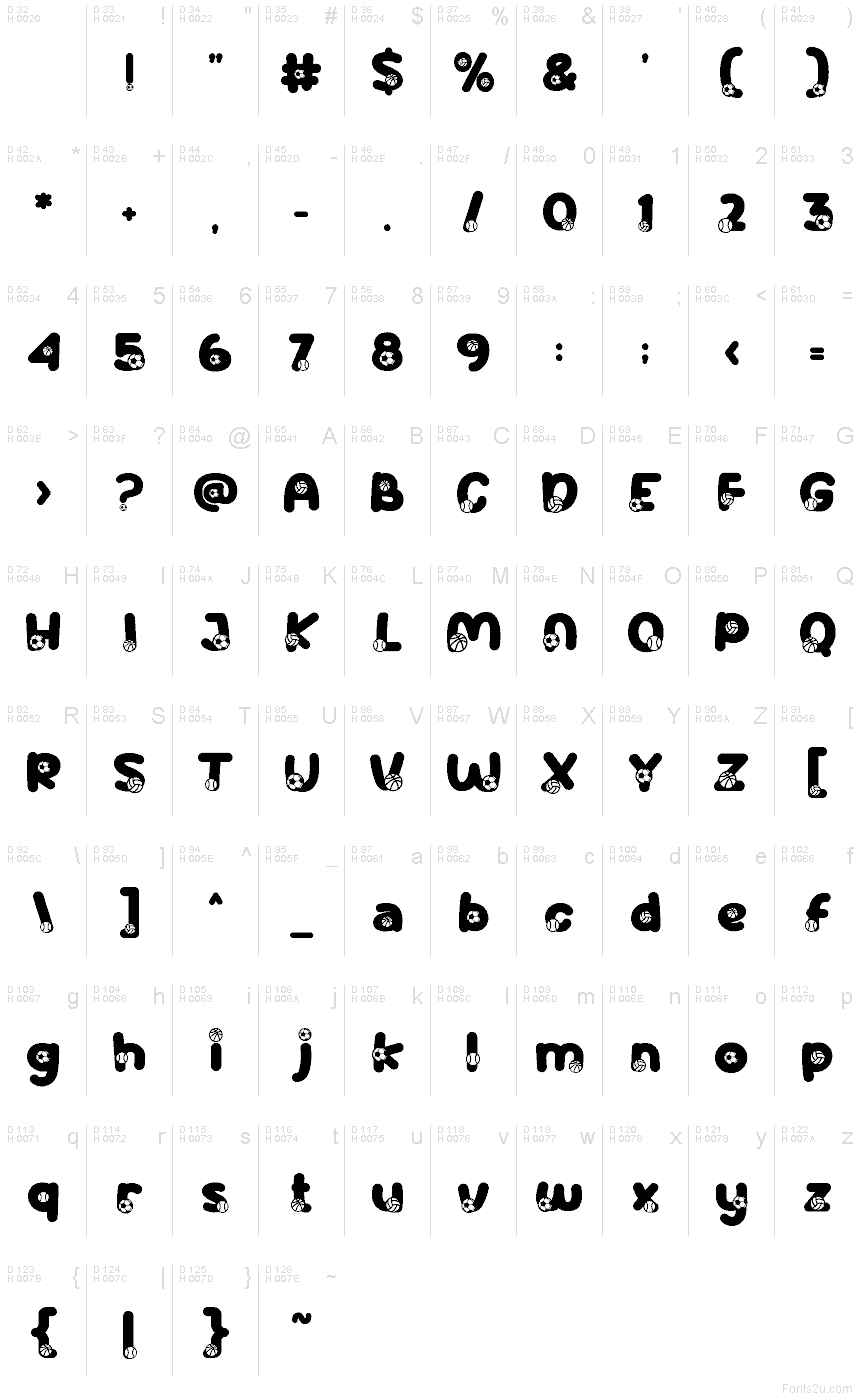
Super School Ball
Super School Ball font by PutraCetol Studio is a decorative bold display font with a playful sportive theme. The free font with its rounded and smooth curves balances between being outlined in some sections and filled within others. Design casual relaxed projects that need to give off sport-related or fun vibes.
Use it on local sports team logos, team merchandise, t-shirt graphics, magazine covers, headlines, book covers for kids’ books and young adults’ novels. Utilize Super School Ball in posters for university events, big entrances on newspapers, skateboard deck designs typography projects, movie posters and ads.